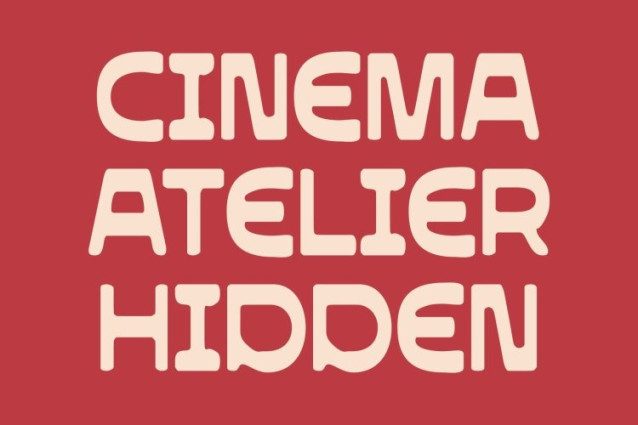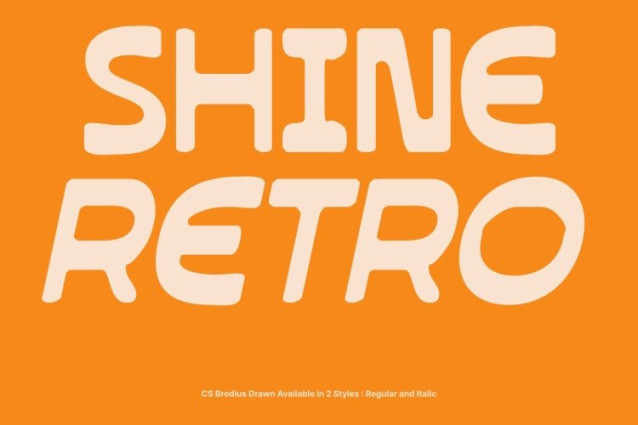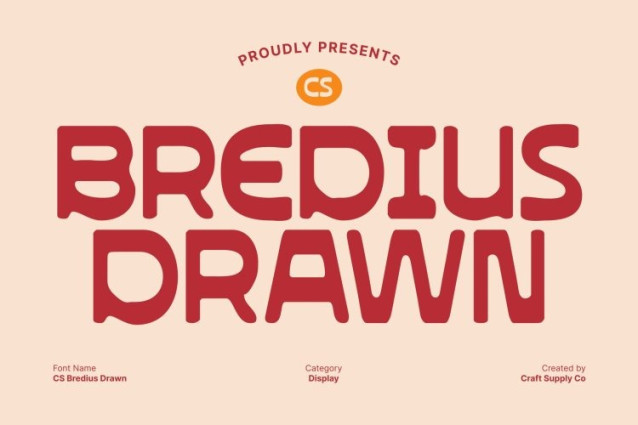
CS Bredius Drawn Font
CS Bredius Drawn Font This is a cheerful and distinctive display font that celebrates individuality through unconventional shapes and expressive rhythm. Each letterform carries a playful twist, creating a sense of fun and spontaneity that instantly captures attention. Designed to stand out, this font injects bold creative energy into any visual composition.
Unusual Letterforms with Hand-Drawn Appeal
What makes this font truly special is its quirky letter design. Every character feels handcrafted and full of personality, enhanced by subtle hand-drawn details. The uneven strokes and whimsical proportions give the font a lively, organic flow, making it perfect for designs that embrace originality and artistic freedom.
Ideal for Playful and Expressive Branding
From posters and logos to editorial layouts and creative headlines, this font thrives in projects where imagination takes center stage. Its bold yet friendly aesthetic suits modern brands, artistic campaigns, event promotions, and lifestyle visuals that want to feel approachable yet distinctive.
Vibrant, Fun, and Full of Life
More than just a quirky display font, this font is a celebration of design freedom. Its cheerful forms and dynamic rhythm bring joy and expression to every word. Use this font to give your designs a confident, playful voice that feels lively, creative, and impossible to ignore.